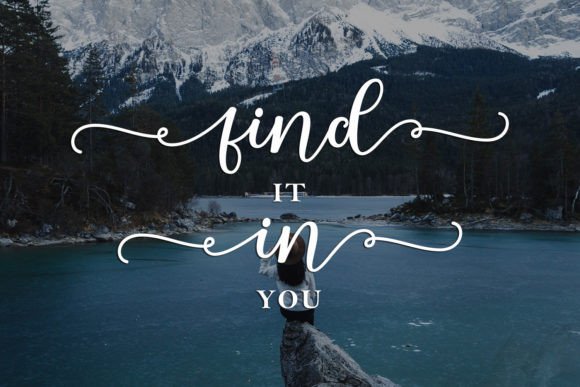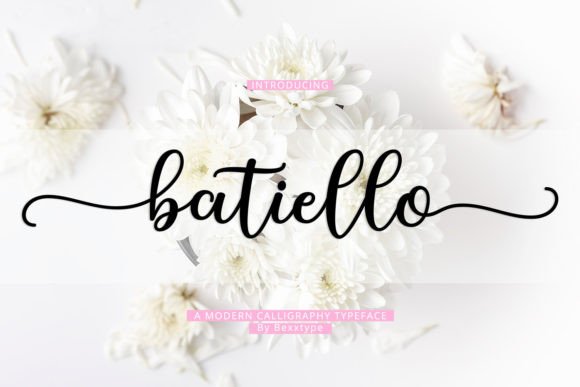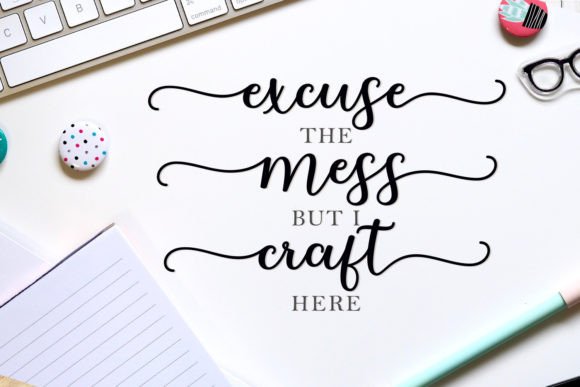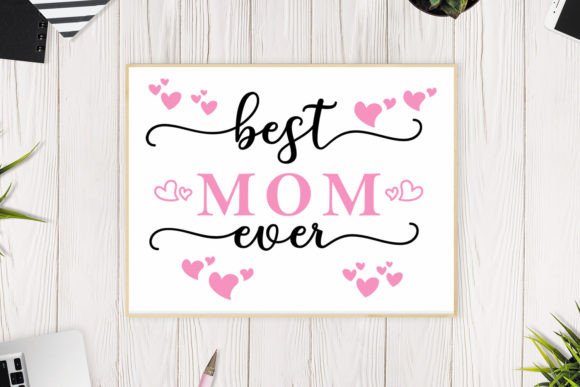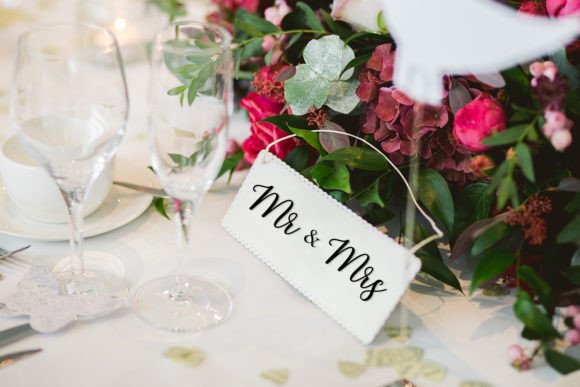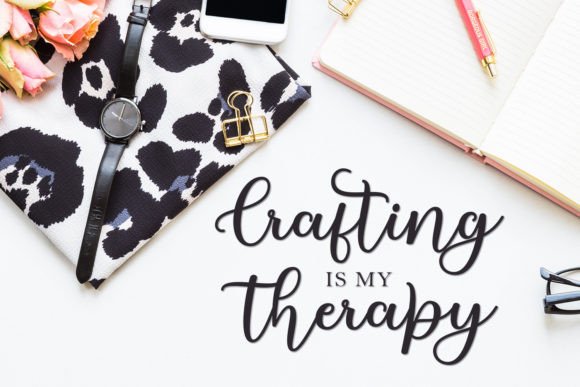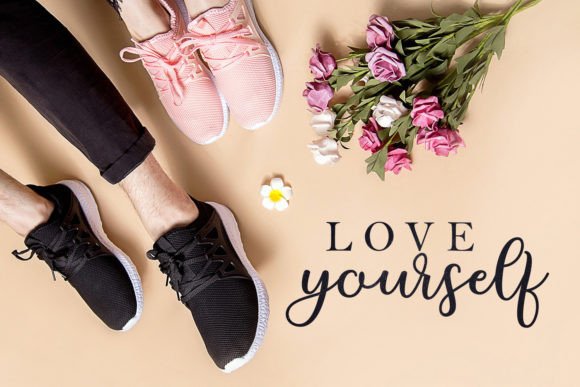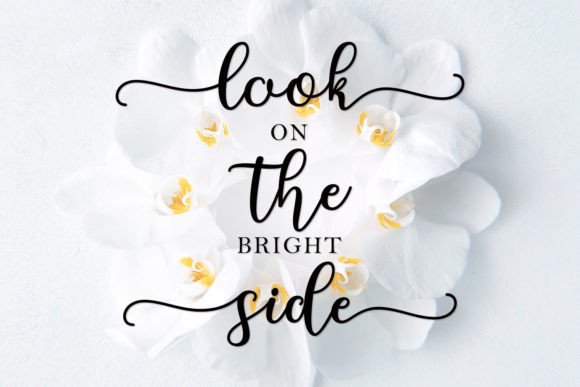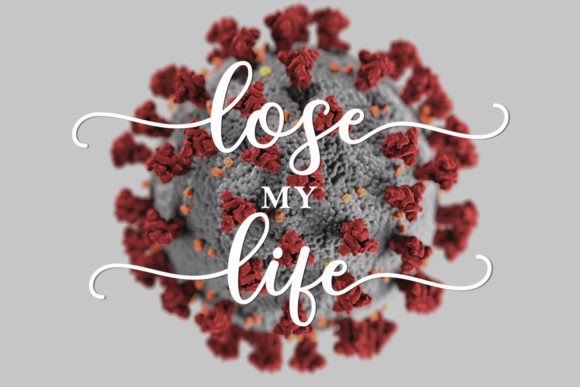
Batiello Font
About Batiello Font
Batiello font is a dazzling script typeface that stands out due to its meticulous craftsmanship and detailed design. When you download Batiello font, you add a sophisticated and elegant tool to your font library. This font has the power to enhance a wide range of creative projects, making it a versatile choice for designers looking to add a touch of class and flair.
Meticulously Crafted and Highly Detailed
Every letter in the Batiello font is carefully designed with precision, ensuring a refined and polished appearance. Its intricate details give your designs a sense of elegance and sophistication. Whether you are working on branding, invitations, or social media graphics, Batiellofont offers the perfect script style to elevate your work.
Dazzling Script for Various Projects
The dazzling nature of Batiello makes it suitable for many types of designs. It can complement logos, posters, packaging, greeting cards, and more. No matter the topic or theme of your project, Batiellofont will bring a captivating and stylish touch.